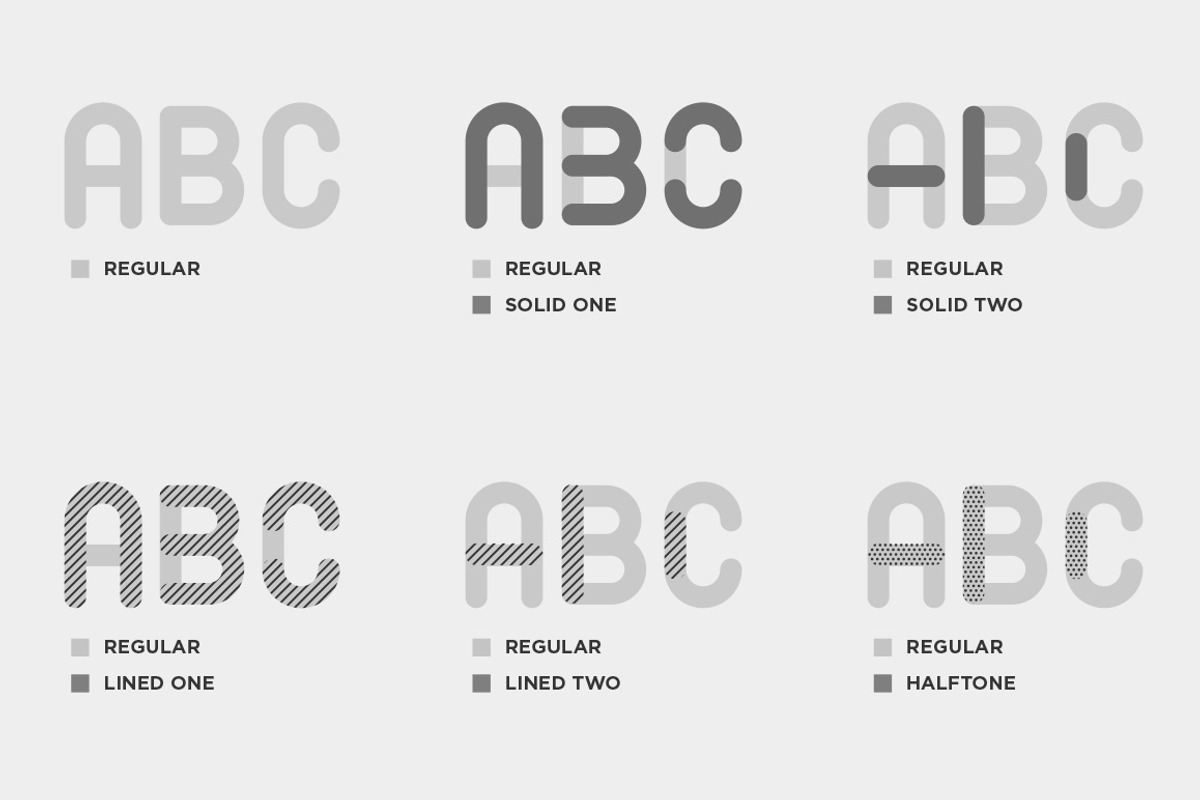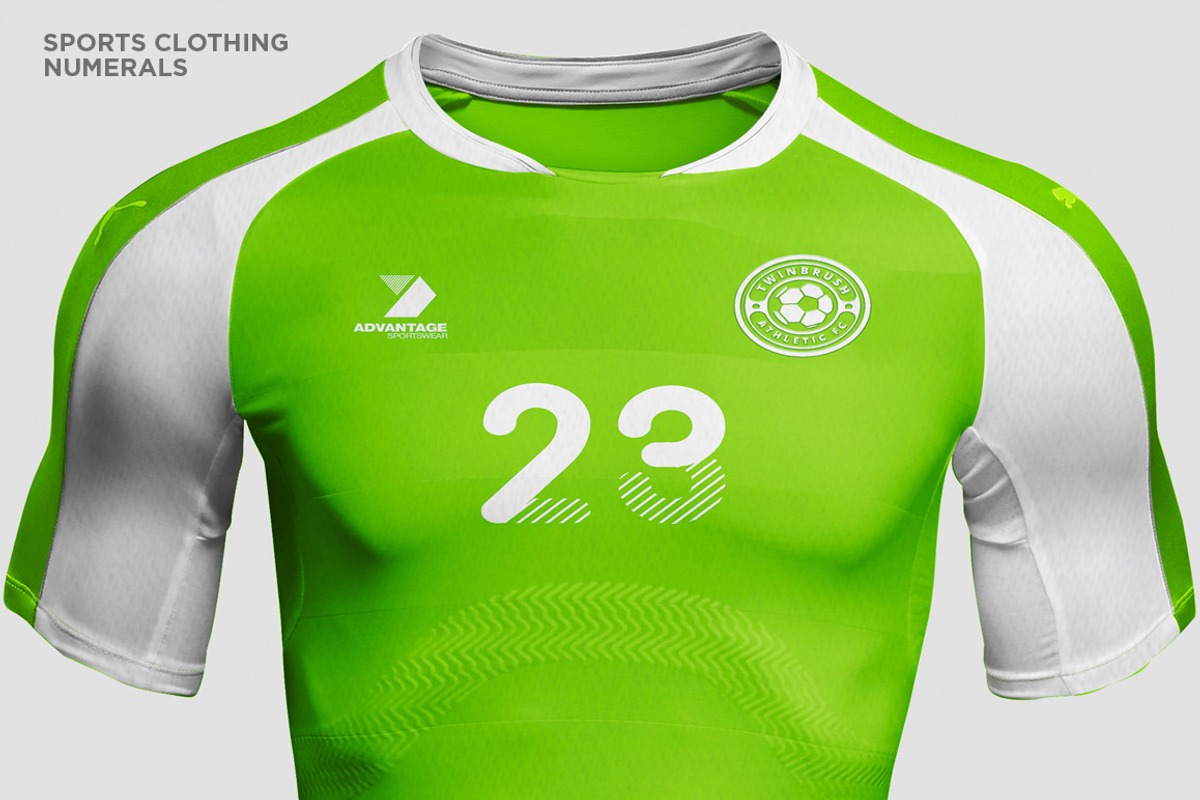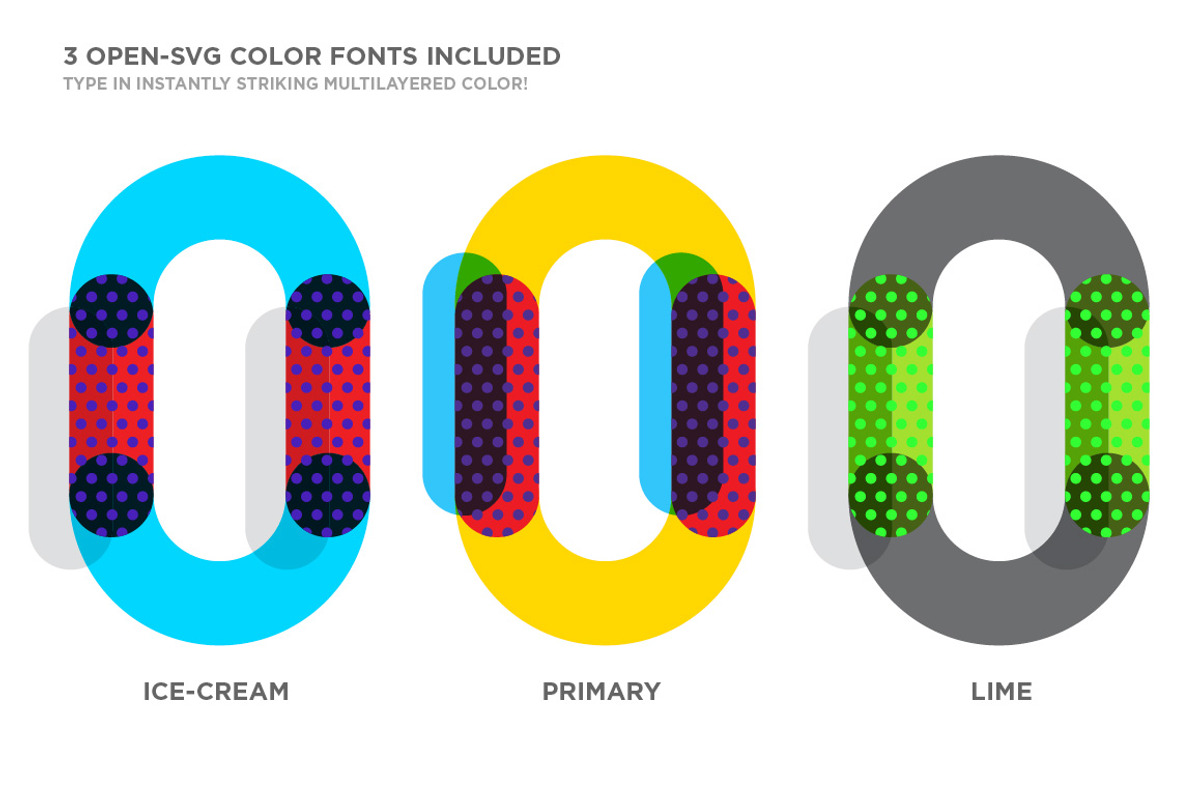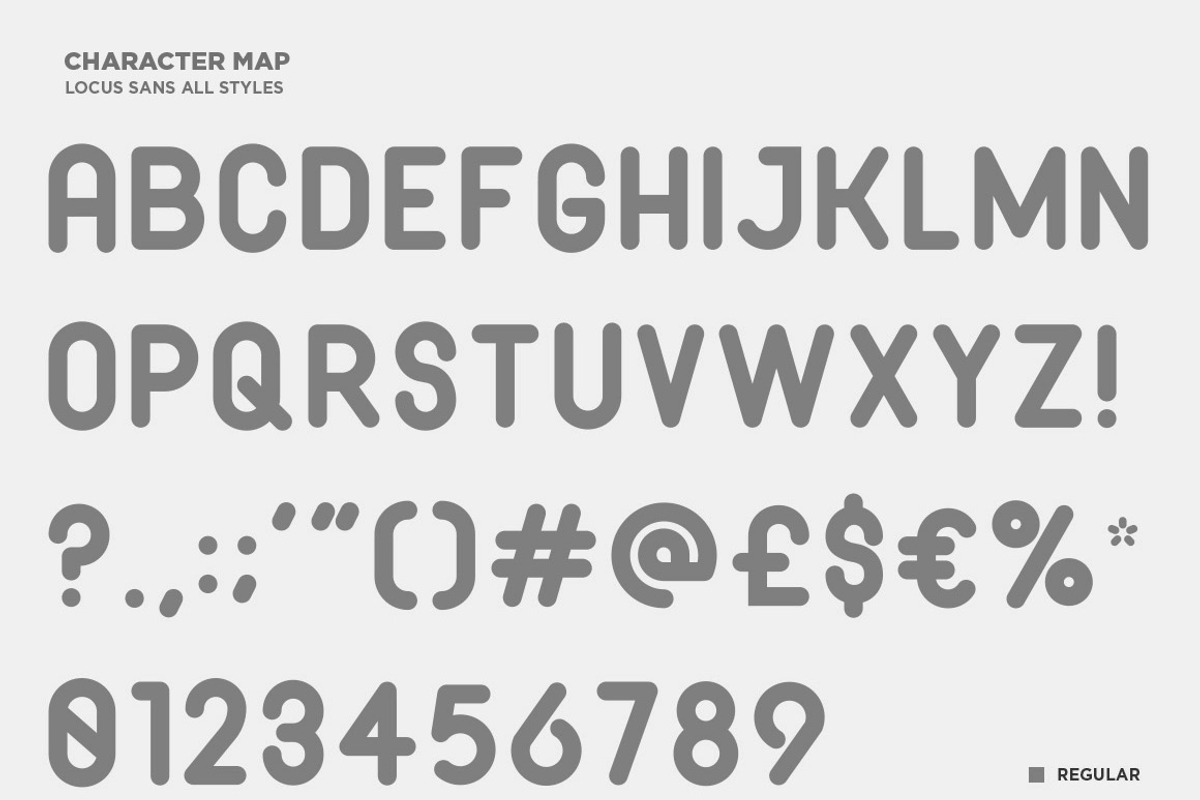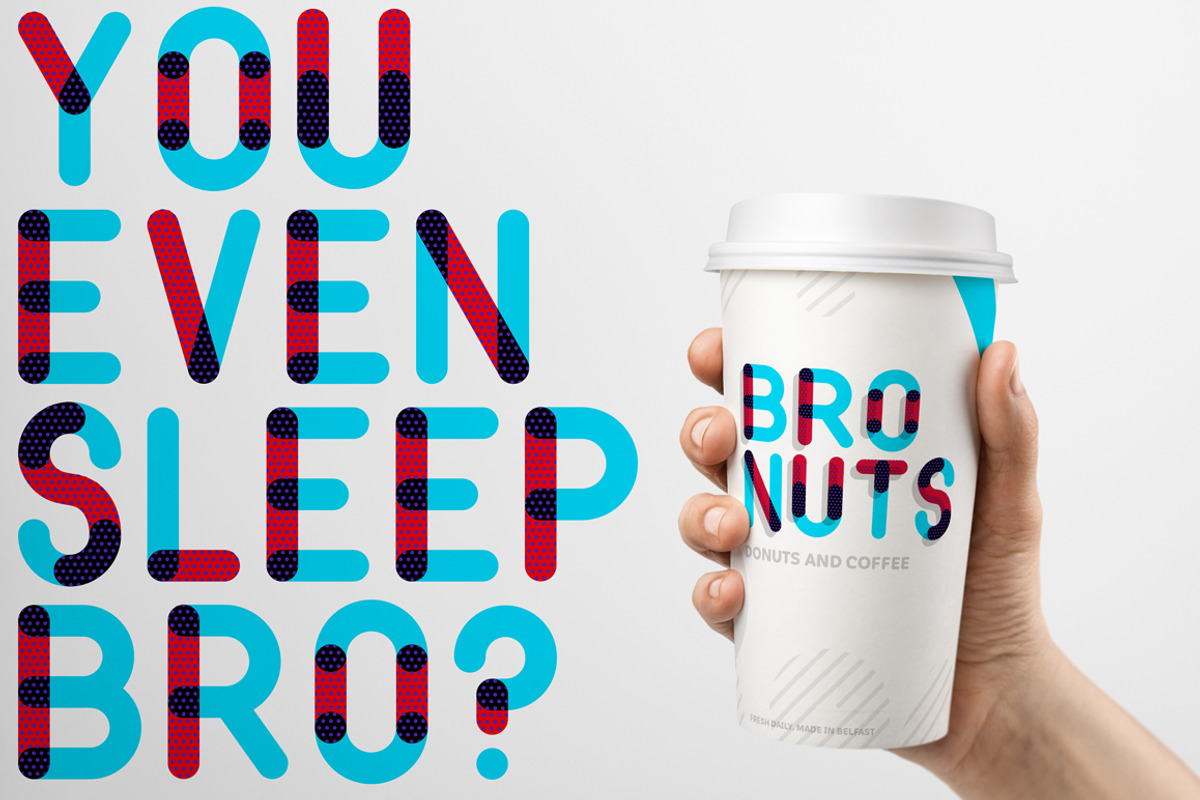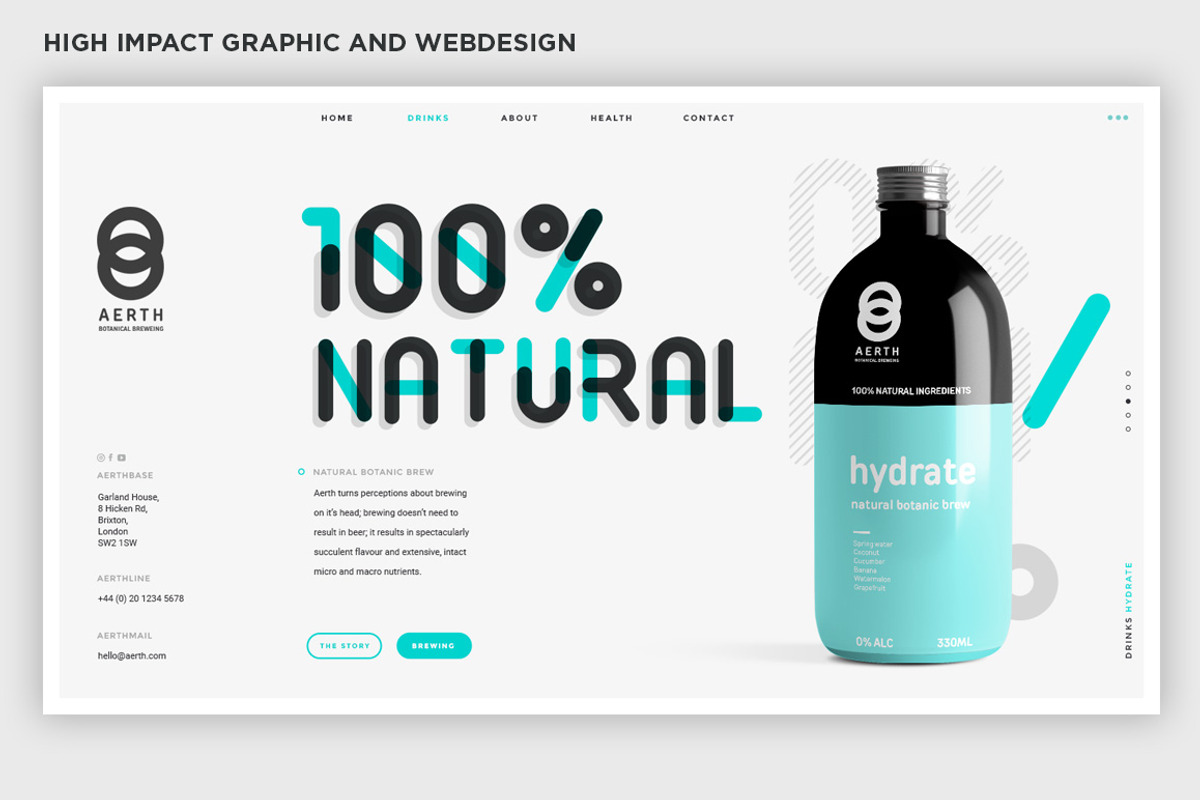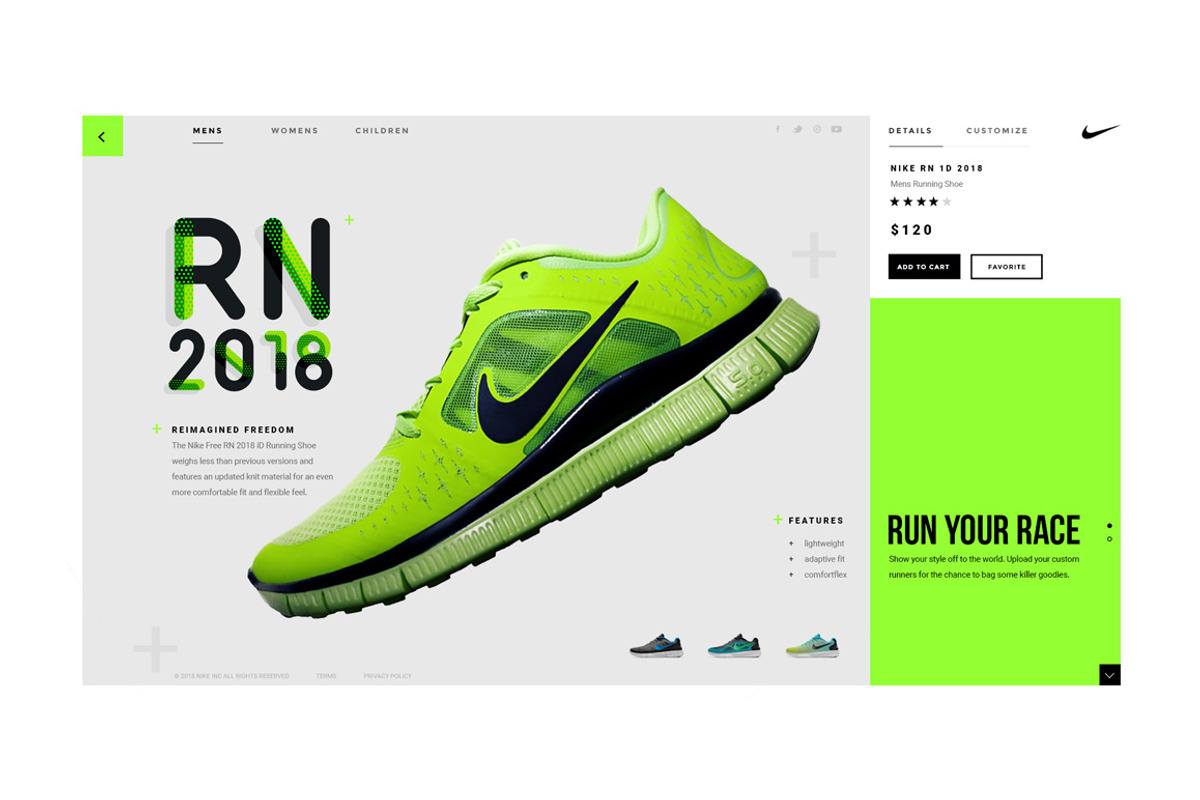
Locus Sans Display and Color Font
Locus Sans is a unique and dynamic, multi-purpose, layered, all-caps display font. Available in six styles, and now 3 color fonts the options that Locus Sans provide are only limited by your imagination. Each style has been specifically and meticulously designed and developed to layer on top of each other, producing highly varied outcomes and really push the boundaries of what font files can do. Combine 2 or more styles, and nudge one off-center to create truly vibrant typography effects...add color combinations and the options are almost limitless.
High Impact Locus sans is ideal for high impact graphic design, editorial design, branding and web design. Although fully intended as a vibrant sans serif display font, Locus Sans Regular, when used on its own, is a functional rounded sans serif font with a slightly retro, European feel.
Color Fonts Included The latest update of Locus Sans contains 3 beautiful Opentype-SVG color font formats allowing you to type directly in complex multi-color instantly. Its worth remembering that as the color fonts are unique, the kerning and tracking values are too; meaning depending on how you combine them, you may need to adjust these values. Please note not all software supports color fonts as yet, please see the links below for more information:
3 stunningly beautiful Opentype-SVG fonts included
Type directly in complex multicolor
6 custom designed and developed styles
Vast combination options to create stunning layered typography projects
Perfect for branding, graphic design and web design
At this time only Latin characters (see previews for details)